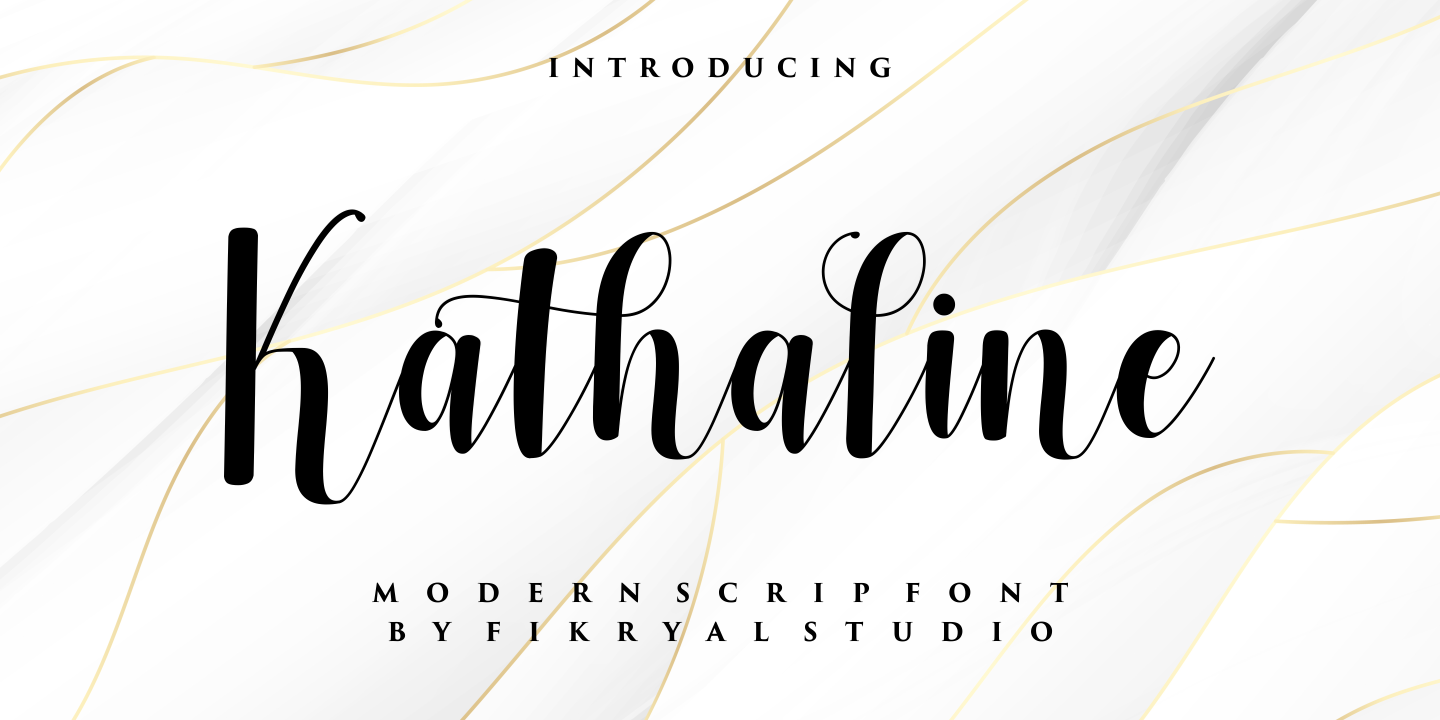
Kathaline Font excels in feminine design applications including elegant beauty brand identity, sophisticated fashion marketing, graceful wedding invitations, upscale boutique signage, luxury cosmetics packaging, refined jewelry advertising, feminine wellness branding, and distinguished advertising campaigns that require typography with graceful character and sophisticated femininity.
What makes Kathaline Font exciting is its exquisite ability to embody feminine grace and sophisticated elegance through delicately crafted letterforms that capture the essence of refined beauty and timeless femininity. This elegant typeface features flowing characteristics with graceful curves and sophisticated details that instantly communicate beauty, refinement, and feminine sophistication. The font's graceful personality and feminine appeal make it perfect for brands seeking to establish connection with sophisticated women and communicate values of elegance, beauty, and refined taste to audiences who appreciate feminine luxury.
Kathaline Font family encompasses multiple weights and elegant variations designed for comprehensive feminine communication. The family typically includes thin, light, regular, medium, and bold weights, complemented by graceful italics, feminine alternates, and extensive character sets with elegant flourishes that enhance its sophisticated aesthetic and provide maximum feminine elegance.
Feminine luxury designers consistently select Kathaline Font Free Download for projects requiring typography that embodies sophisticated femininity and graceful elegance. This distinguished typeface adapts beautifully across luxury feminine applications, from digital beauty platforms to premium fashion materials, delivering consistent brand messaging with unmistakable feminine authority and elegant appeal. The font's gracefully crafted letterforms ensure exceptional readability while maintaining the sophisticated presence that feminine luxury brands demand. Elite feminine brands worldwide rely on this elegant typeface to communicate brand values of beauty, sophistication, and feminine excellence. Embrace graceful femininity with Kathaline Font and create memorable visual communications that resonate with audiences who appreciate sophisticated beauty, feminine elegance, and the timeless appeal of graceful design that celebrates the refined essence of feminine sophistication.